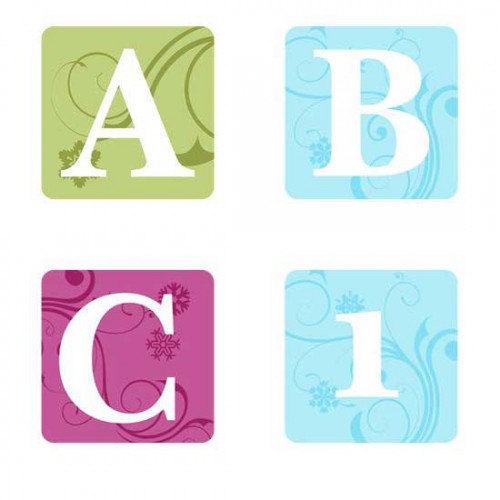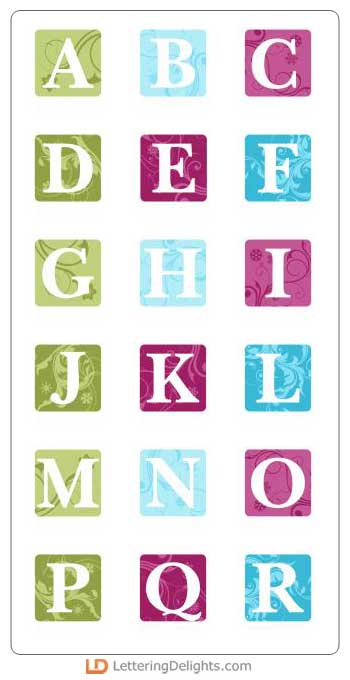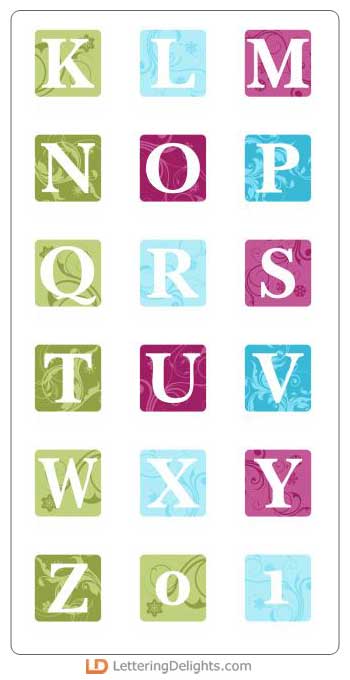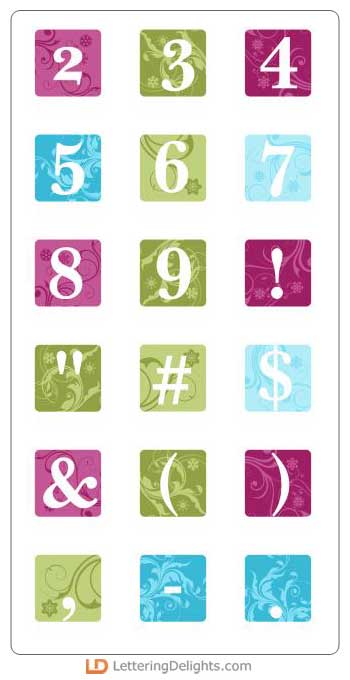
The elegant images of swirling snow and softly falling snowflakes, along with the snow white characters of the Snowland Alphabet bring a graceful bit of nature to your beautiful wintry creations.